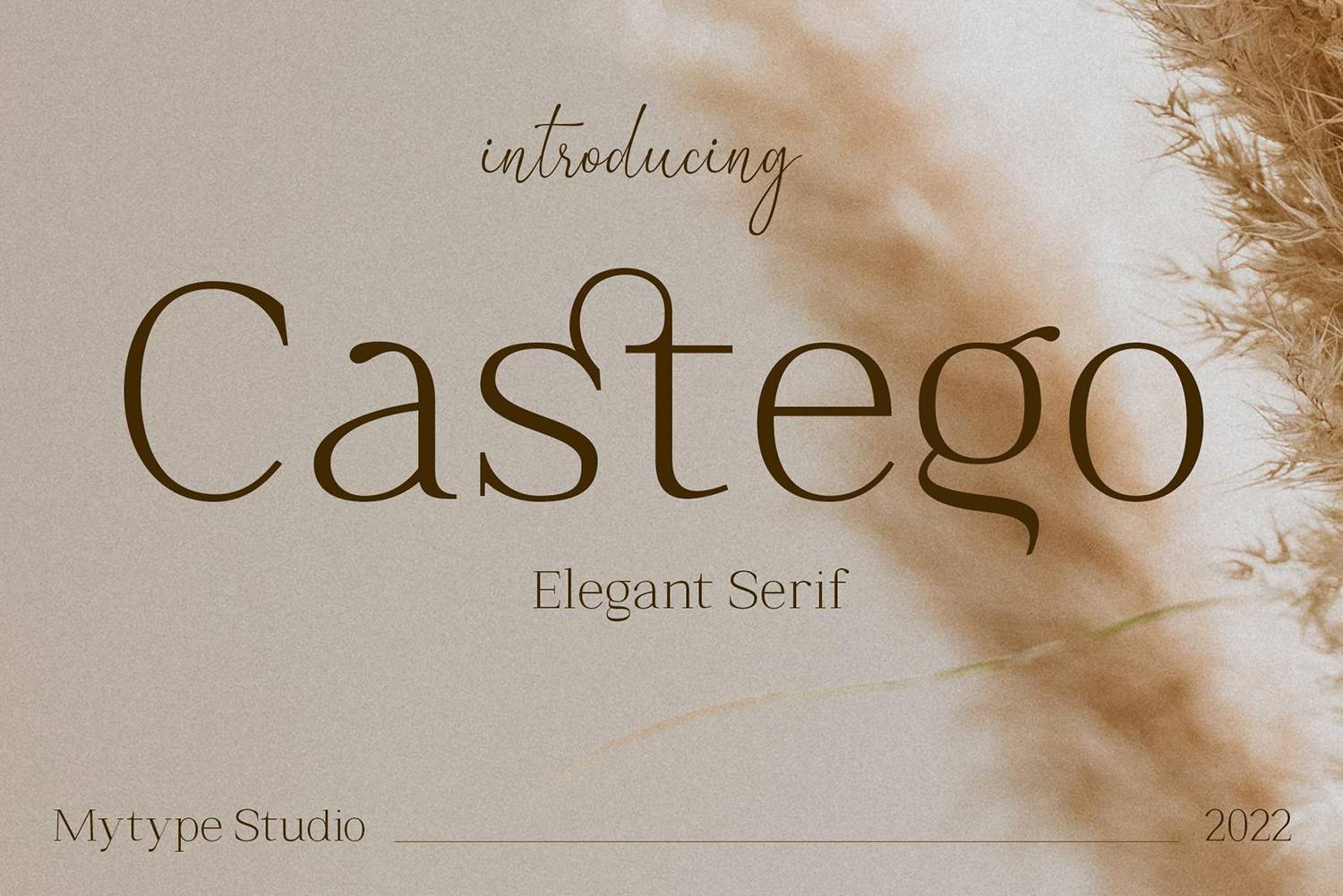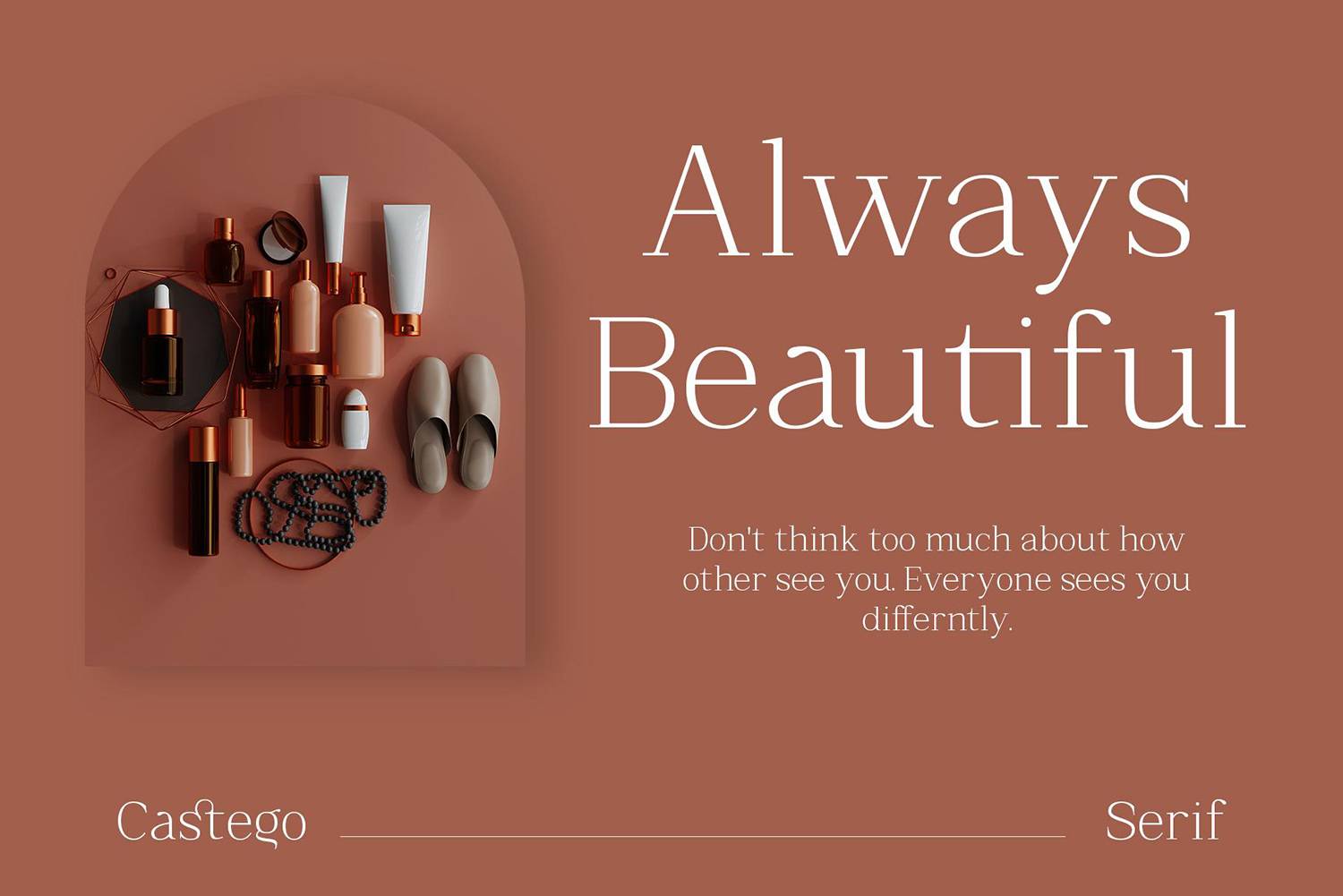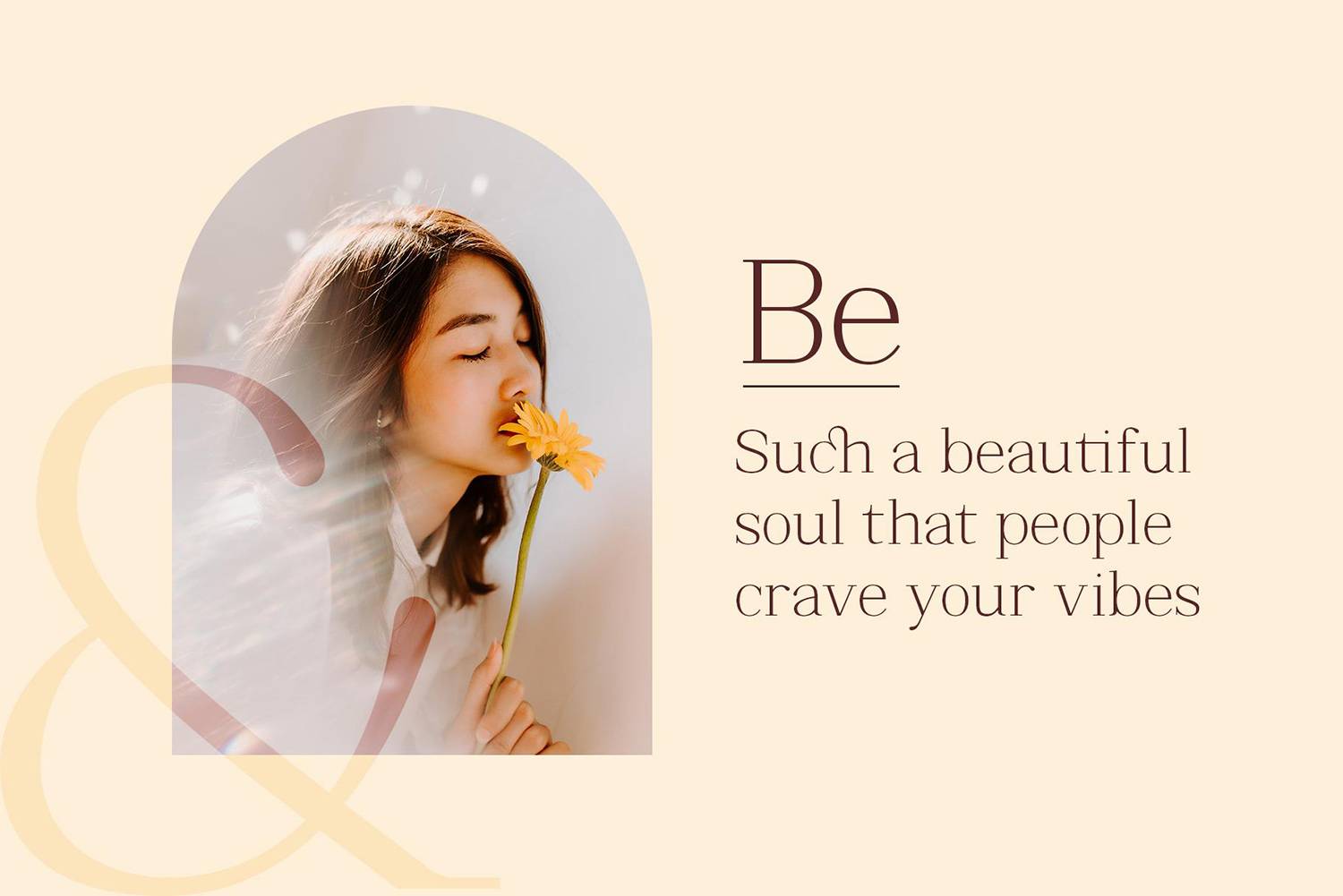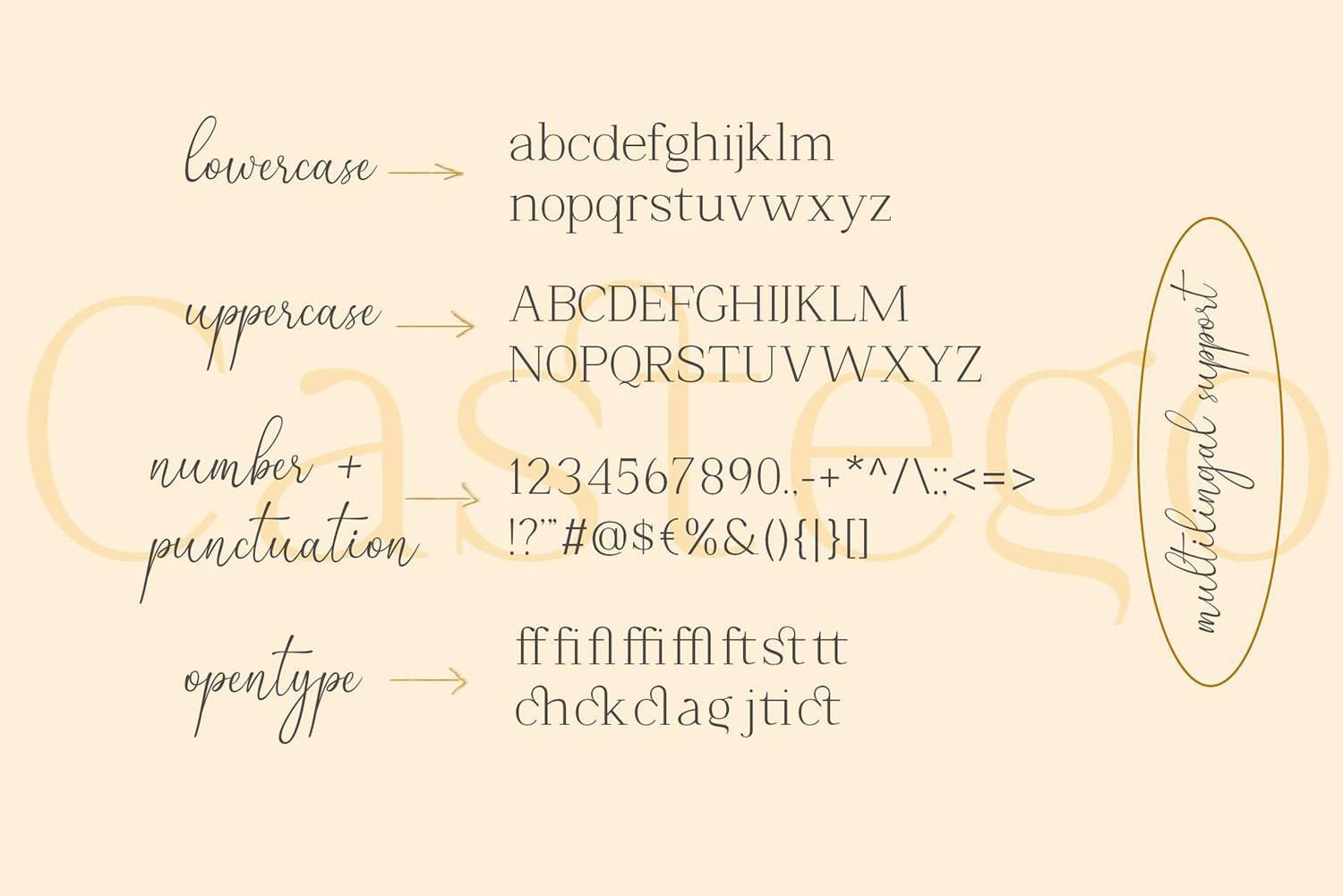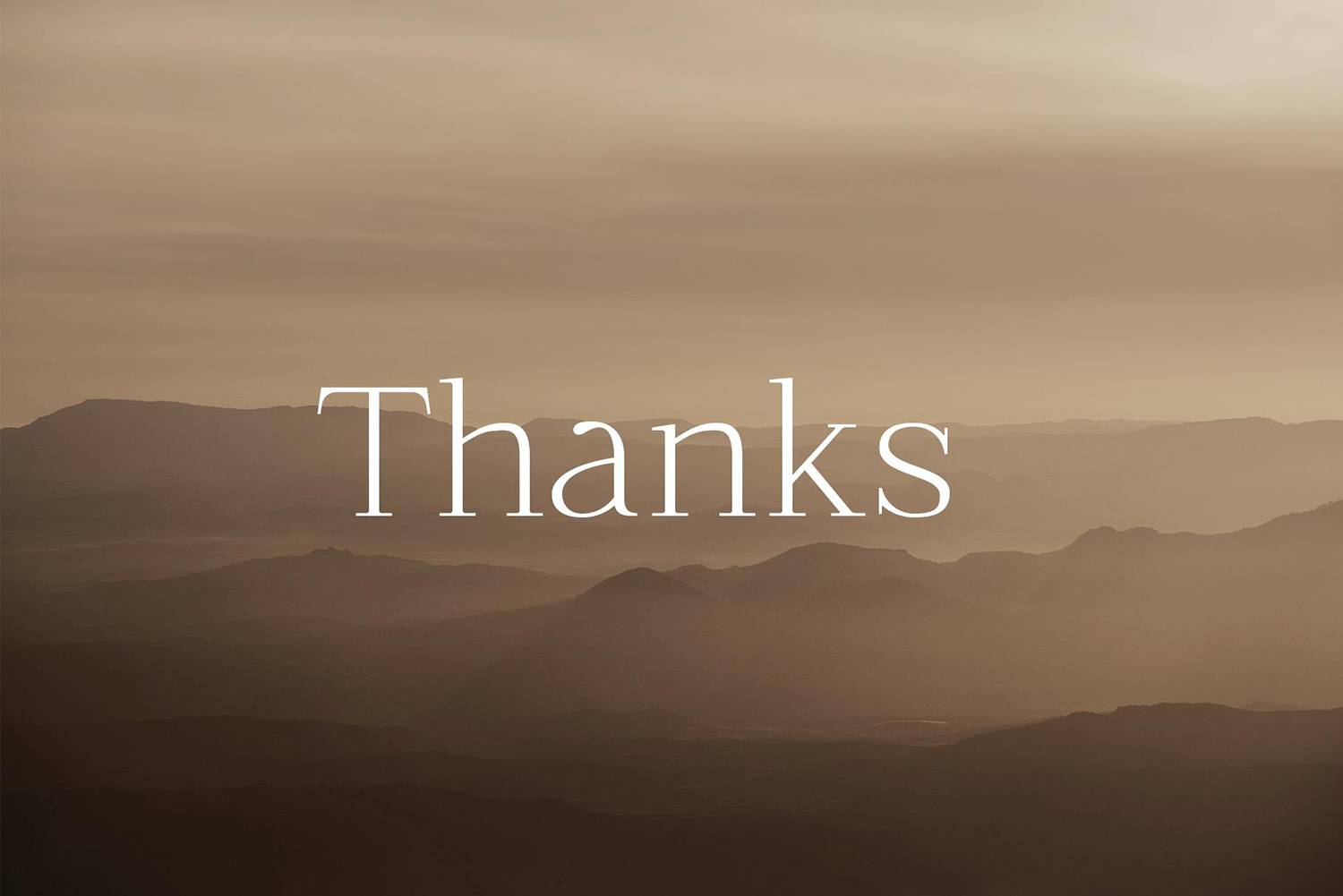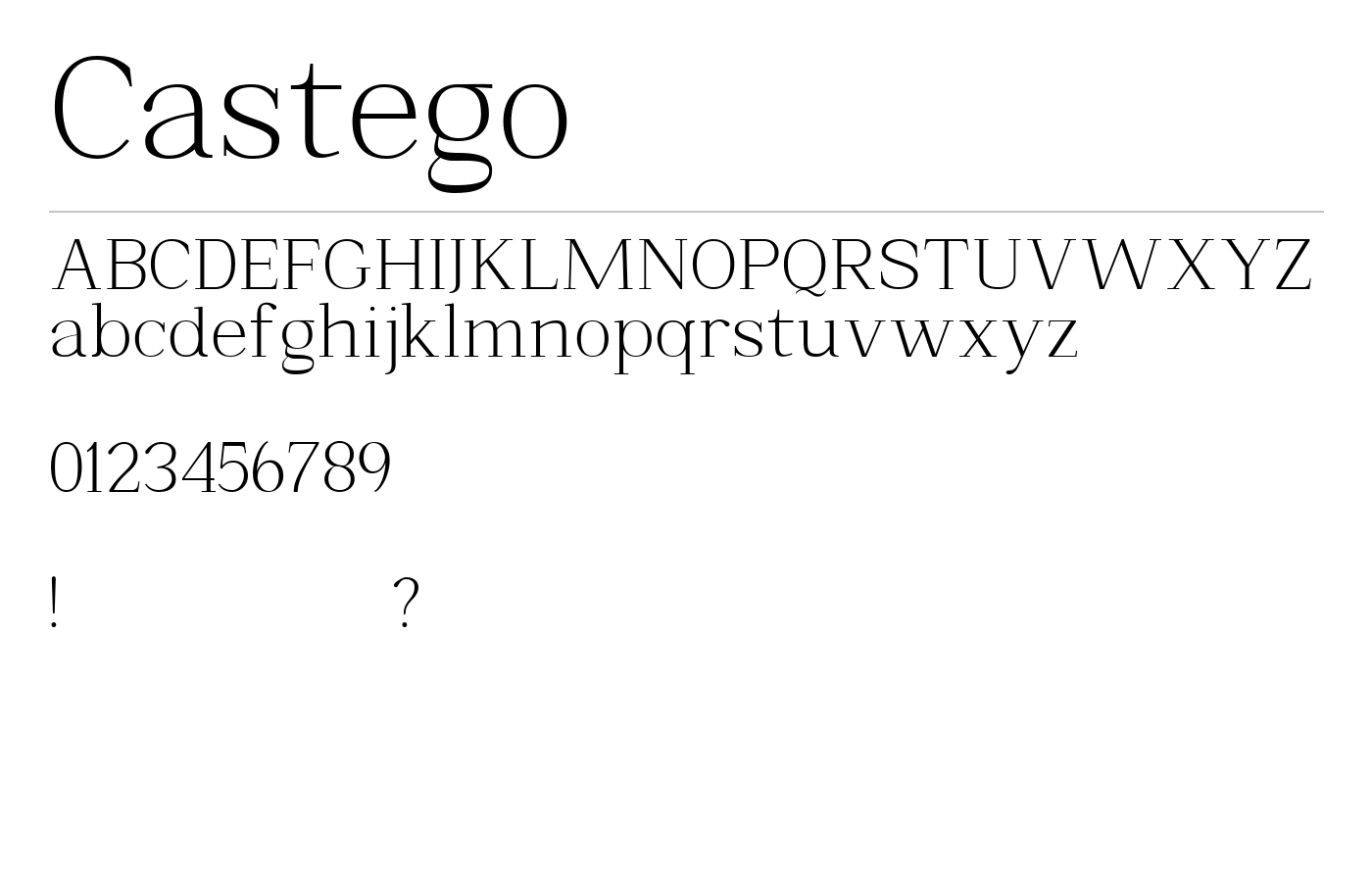
Castego is an elegant serif font that features a modern, refined look with delicate thin strokes and high contrast between thick and thin lines. Its tall x-height and slender letterforms give it a sophisticated and classic feel, making it ideal for upscale branding, editorial design, and stylish headlines where a touch of timeless luxury is desired.
Castego Font
About Castego Font
| Font family | Castego Font |
| Release date | 2022-01-06 |
| Designer | Mhd Husaini |